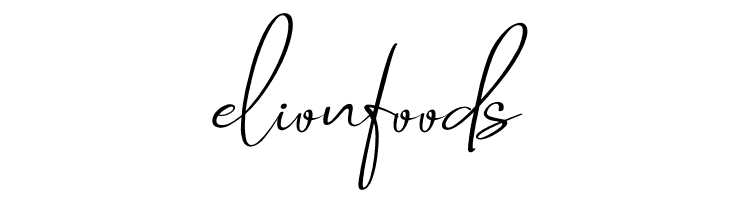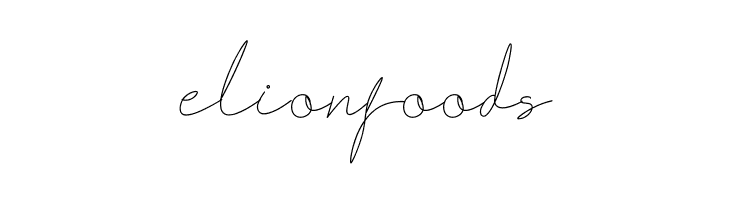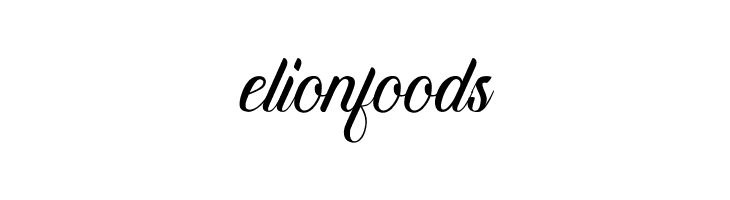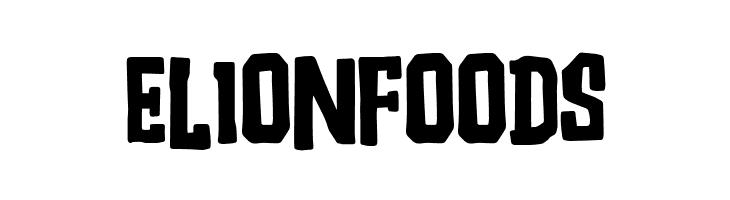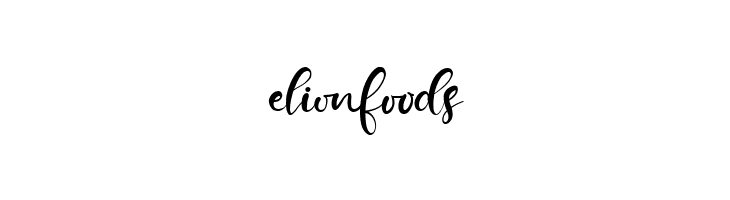
An elegant, flowing cursive font with a sophisticated italic style.
A dynamic and fluid handwritten script font with expressive strokes.
A flowing, cursive font with elegant, elongated strokes and a sophisticated appearance.
Elegant cursive font with flowing, connected letters and a sophisticated style.
A sophisticated script font with fluid, cursive strokes and elegant flourishes.
A bold, hand-drawn font with a rugged and organic style.
An elegant script font with flowing, cursive strokes and sophisticated flourishes.
A sophisticated, high-contrast serif font with elegant, condensed characters.
An elegant, cursive font with a sophisticated, handwritten style.
A dynamic and elegant italic font with high contrast and sophisticated serifs.